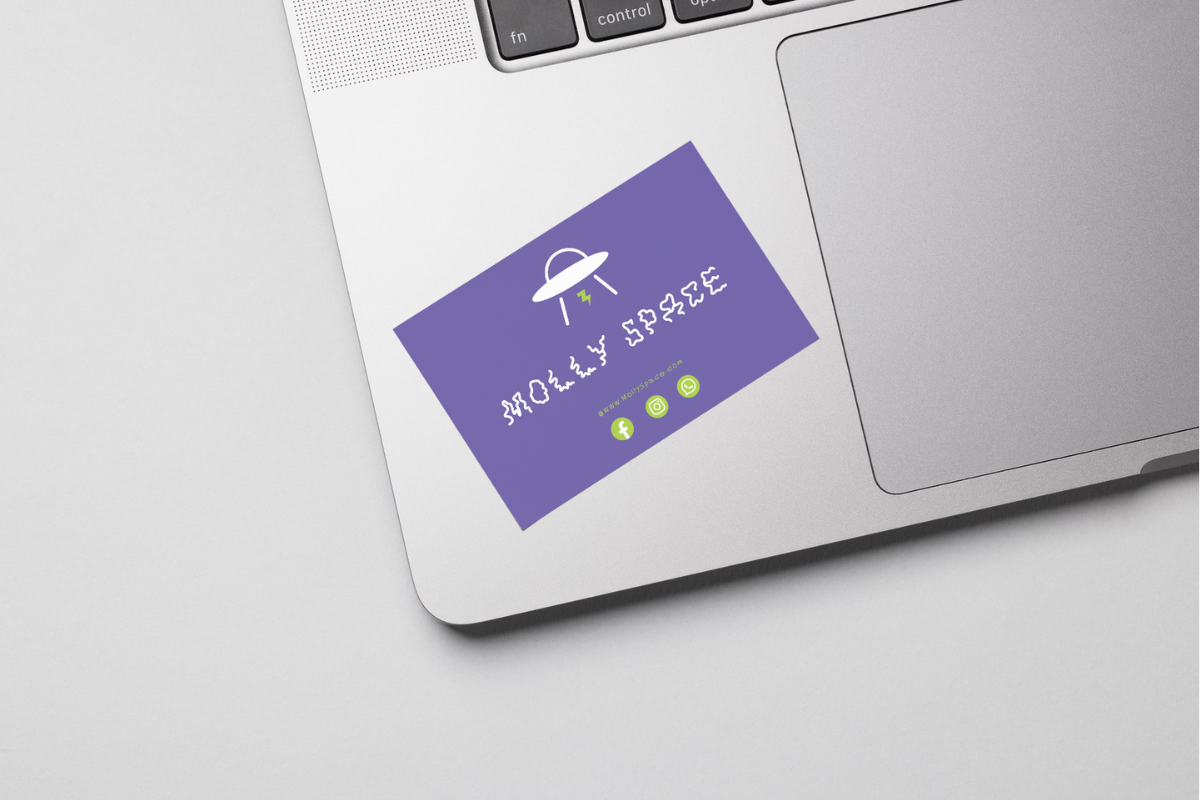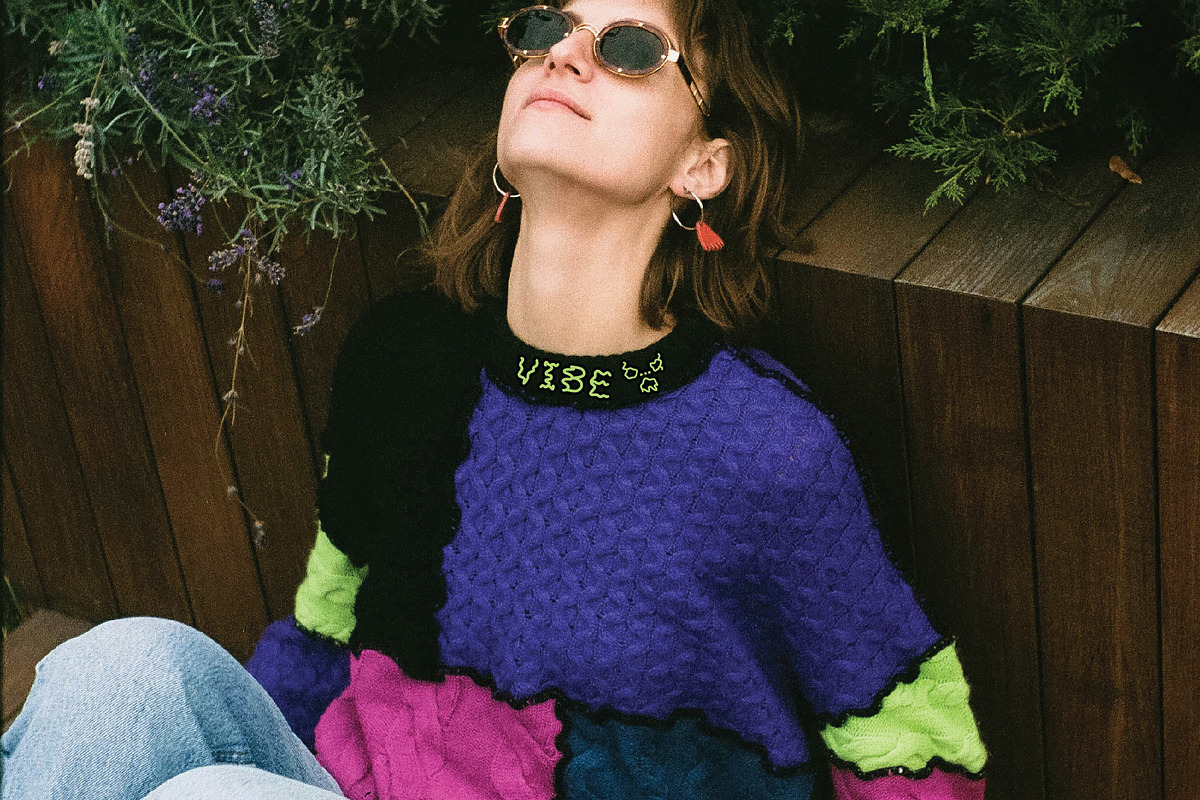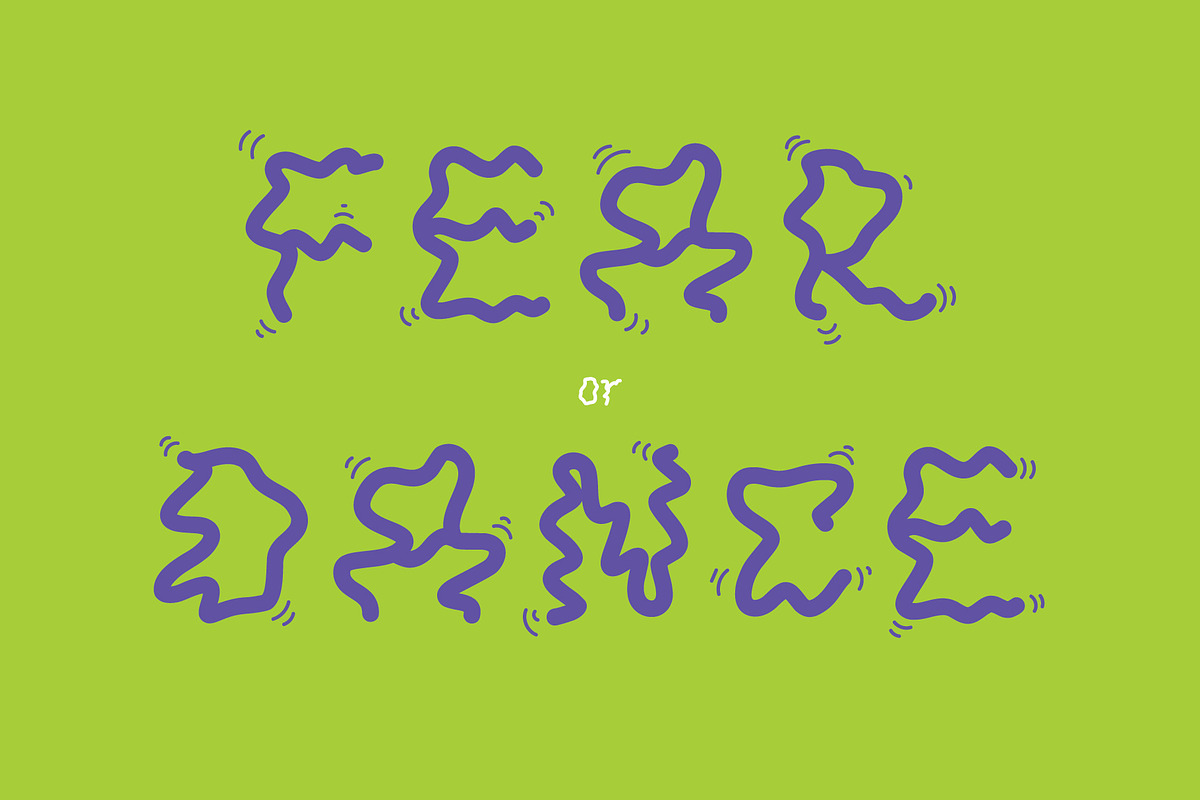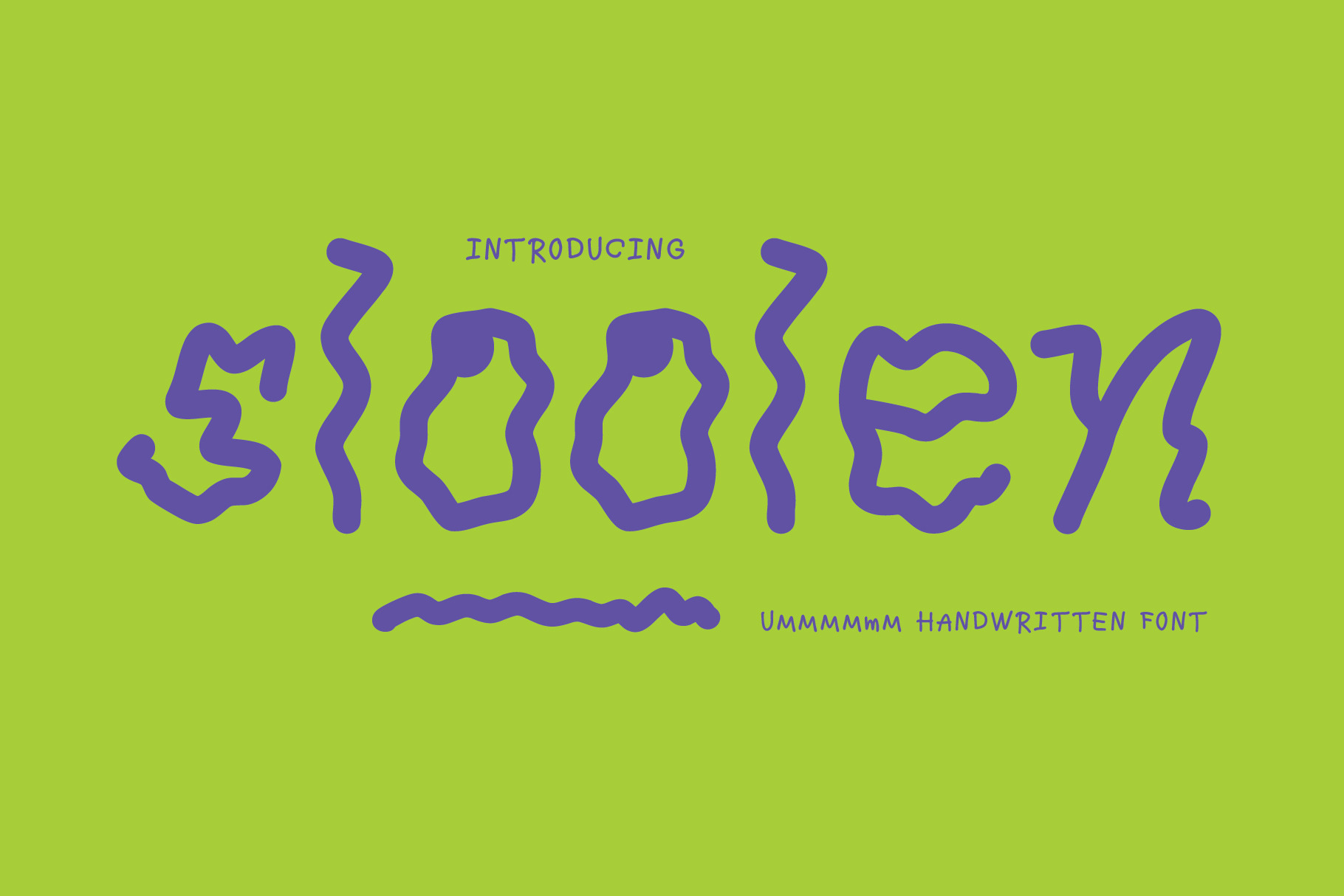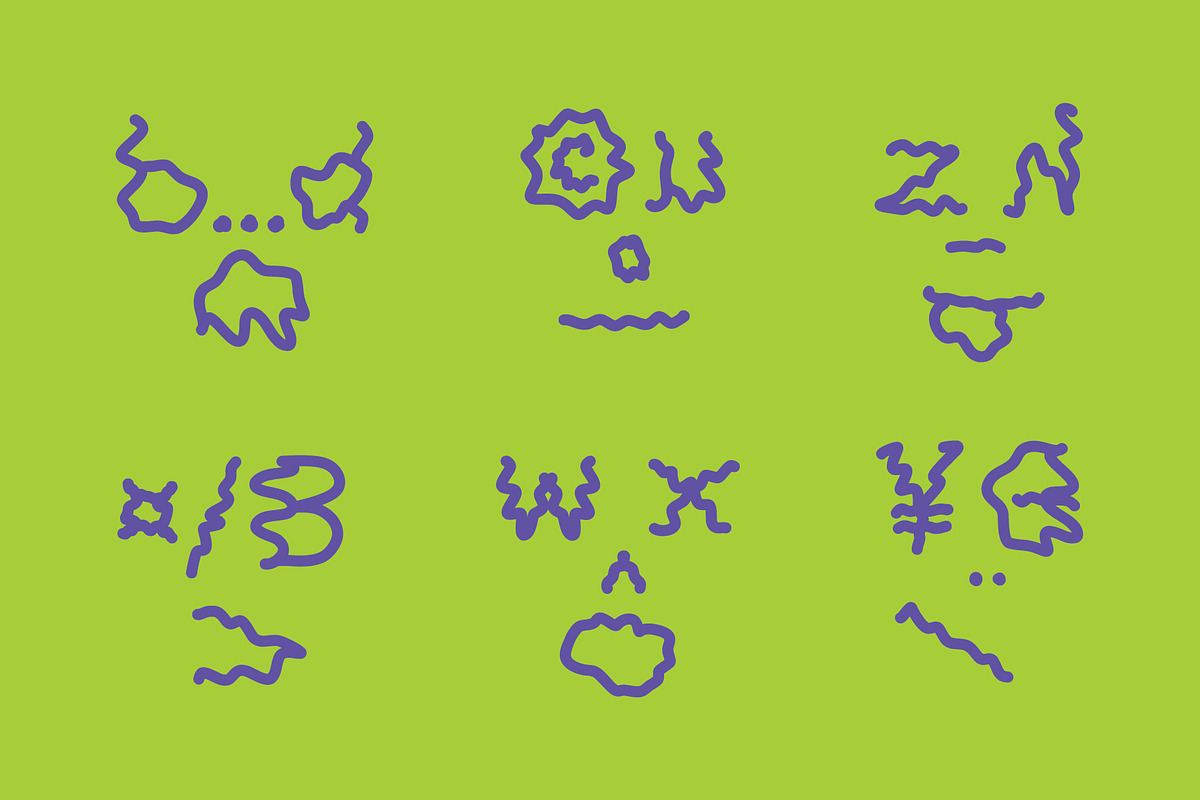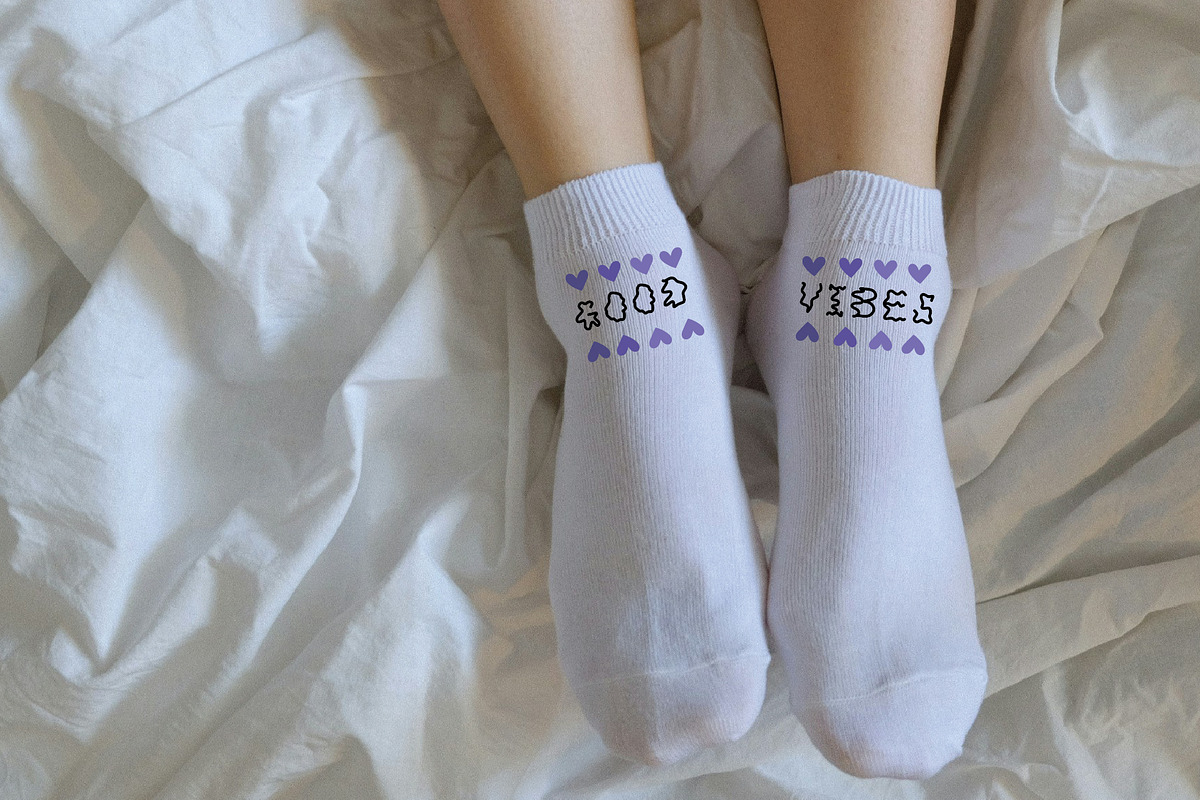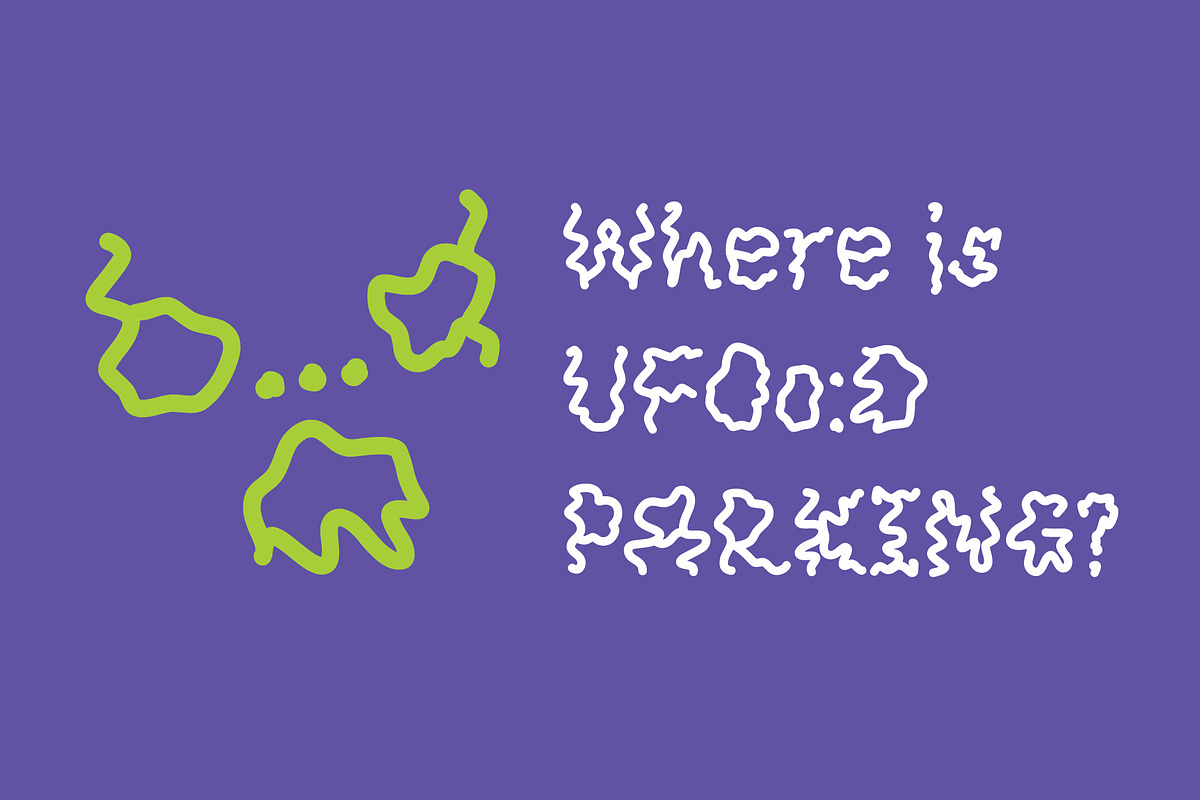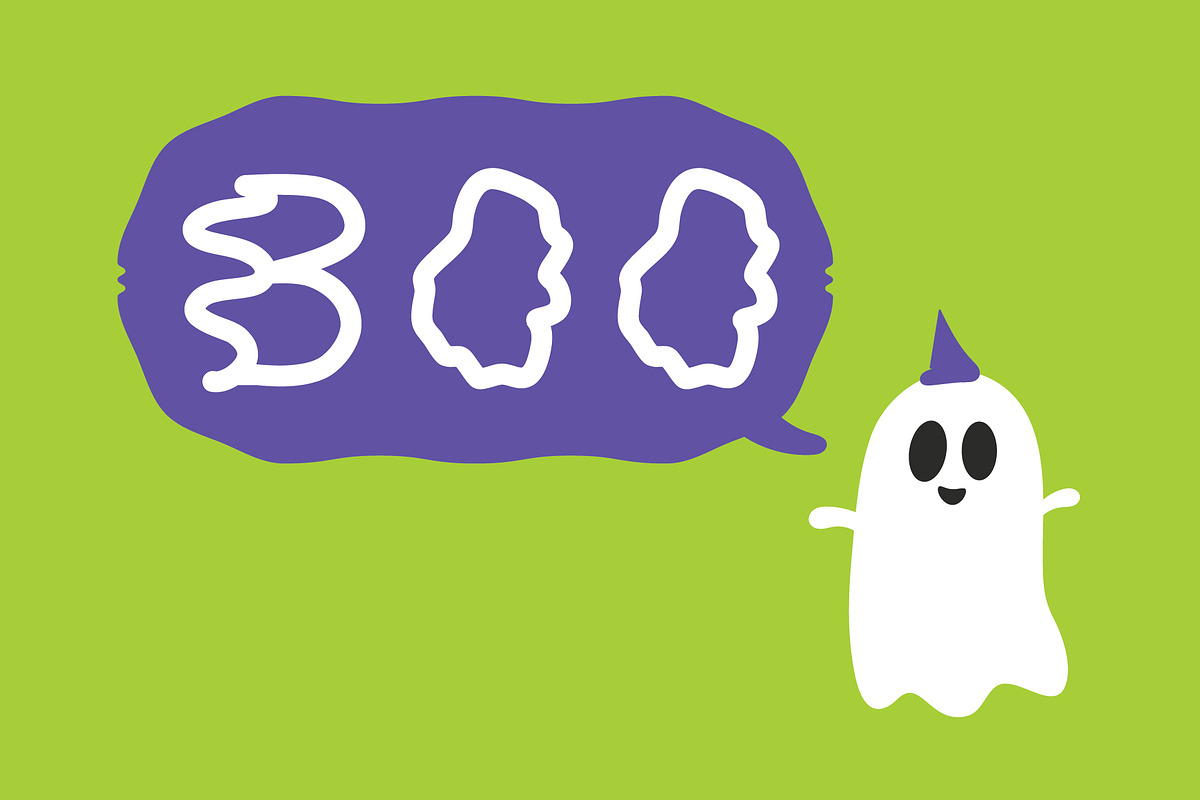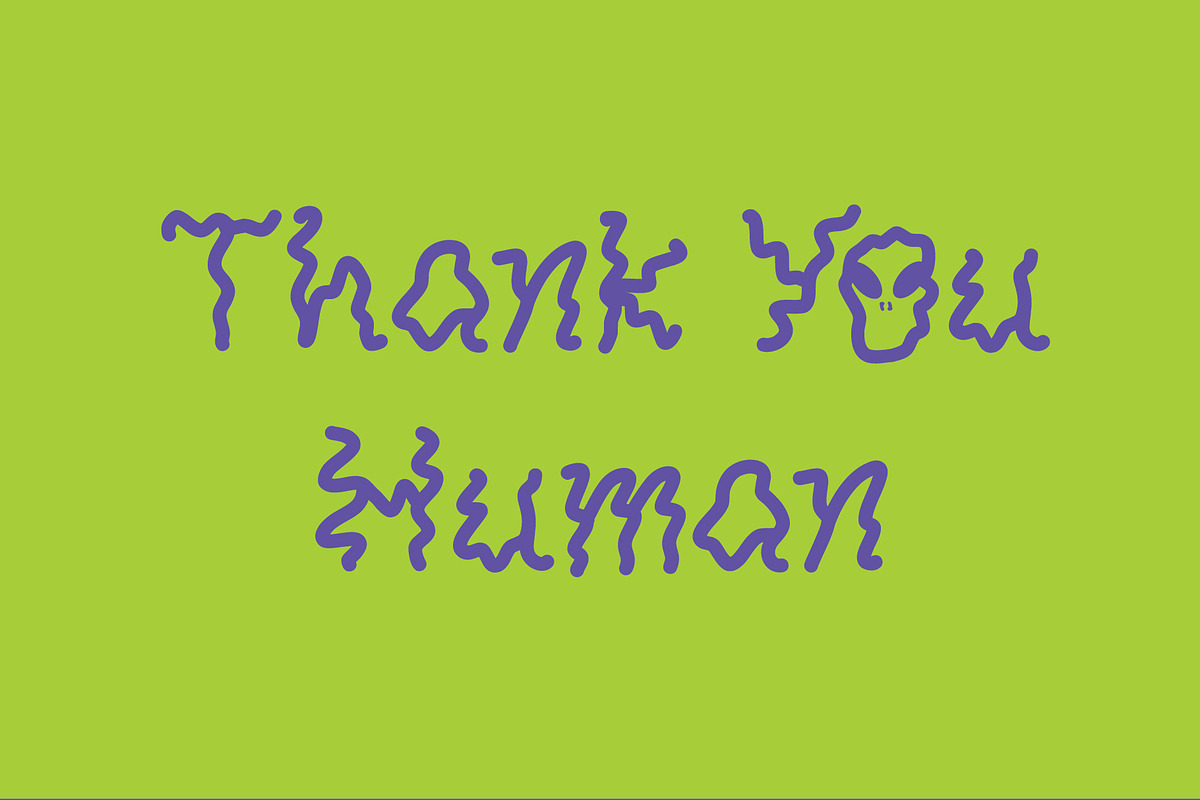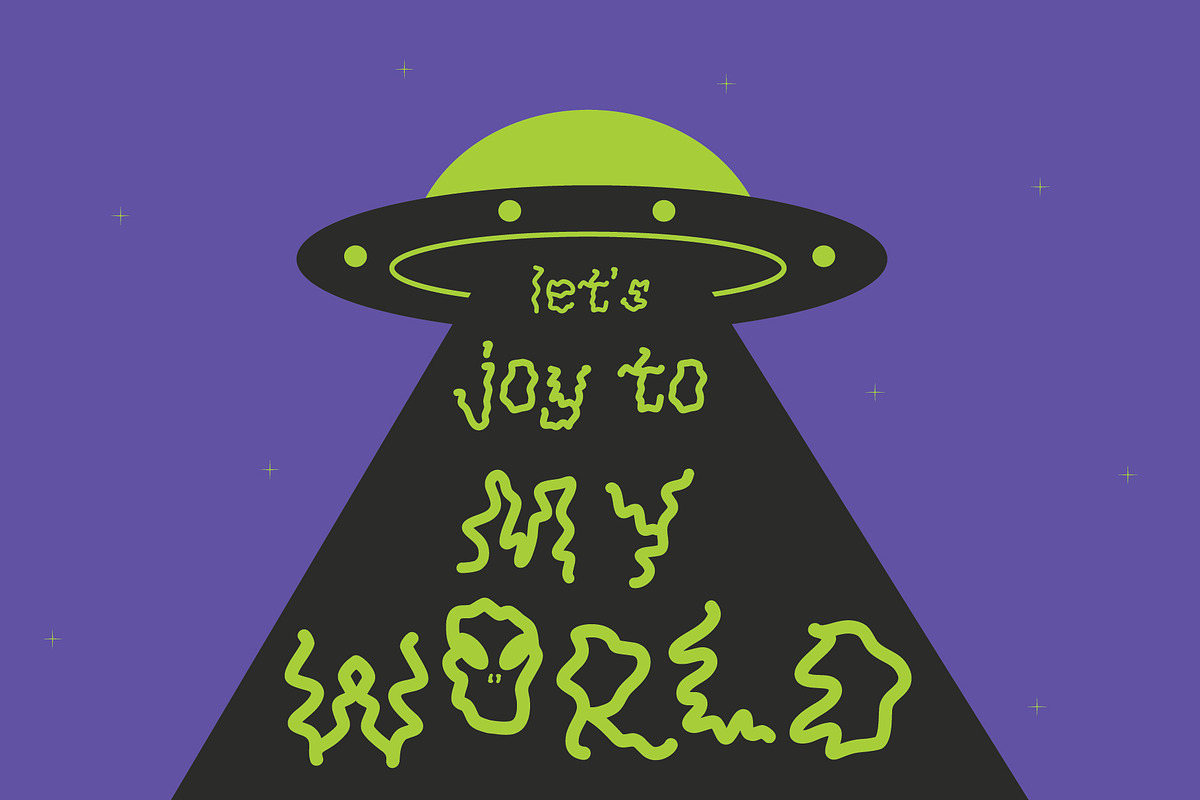
Sloolen Handwriting Font
The Sloolen Handwritten font is designed to be a funny font. It's created to add interest and artistic flair to various fun and lively projects. Its dynamic and playful writing style can effectively create engaging and quirky artwork.